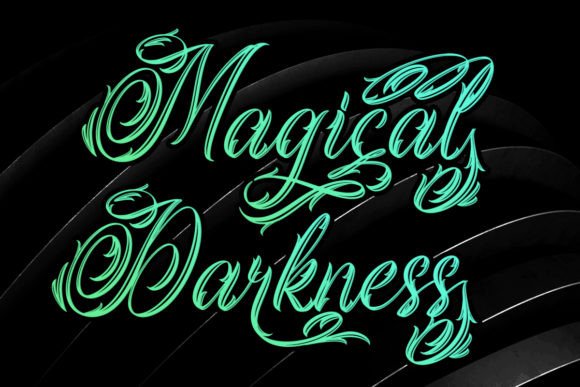
Unleash the Mystique: Exploring the Magical Darkness Font
In the realm of typography, few fonts evoke the essence of mystery and intrigue as effectively as the Magical Darkness font. This Gothic-style script font is a masterpiece of design, boasting intricate and ornate details that conjure a sense of drama and theatricality. Whether you’re looking to create an enchanting invitation, a captivating book cover, or a spellbinding Halloween-themed design, Magical Darkness is the perfect typeface to add a touch of magic to your project.
The Design: A Symphony of Swirls and Curls
Magical Darkness is characterized by its elaborate swirls and curls, which dance across the page with a mesmerizing rhythm. The font’s Gothic-inspired design is reminiscent of ancient manuscripts and mystical tomes, imbuing any project with a sense of history and mystique. The intricate details are meticulously crafted to create a dramatic and theatrical appearance, making Magical Darkness a standout choice for designs that demand attention.
Perfect for a Variety of Projects
Magical Darkness is a versatile typeface that lends itself to a wide range of applications. Here are just a few examples of how you can harness the power of this enchanting font:
- Invitations: Create mystical and alluring invitations for weddings, parties, or other special events that will leave your guests spellbound.
- Book Covers: Add a touch of mystery and intrigue to your book cover design, perfect for genres such as fantasy, horror, or mystery.
- Halloween-themed Designs: Conjure up a spooky and eerie atmosphere with Magical Darkness, ideal for Halloween-themed designs, such as party invitations, decorations, or social media graphics.
- Branding and Packaging: Infuse your brand with a sense of magic and enchantment, perfect for businesses that specialize in mystical or spiritual services.
Tips and Tricks for Working with Magical Darkness
To get the most out of Magical Darkness, here are a few tips and tricks to keep in mind:
- Experiment with font sizes: Magical Darkness looks stunning in large font sizes, but it can also be effective in smaller sizes, especially when used for captions or taglines.
- Play with color: The font’s intricate design lends itself well to bold, rich colors that enhance the mystical and mysterious atmosphere.
- Mix and match: Combine Magical Darkness with other fonts to create a unique and captivating typography that adds depth and interest to your design.
Magical Darkness is a captivating Gothic-style script font that embodies the essence of mystery and intrigue. Its intricate design, elaborate swirls, and curls make it perfect for a variety of projects, from invitations and book covers to Halloween-themed designs and branding. With PUA encoding, you can easily access a vast library of glyphs and ligatures, unlocking the full potential of this enchanting font. Whether you’re a designer, artist, or DIY enthusiast, Magical Darkness is sure to cast a spell on your audience, leaving them enchanted and spellbound.